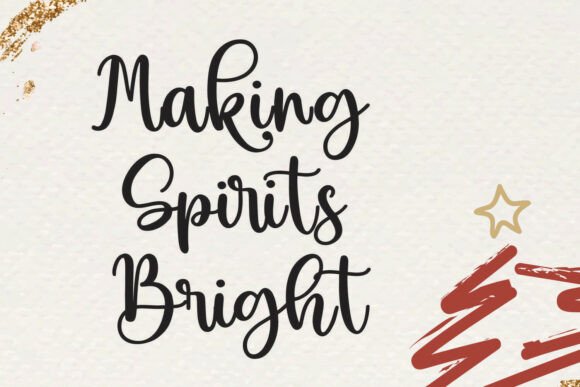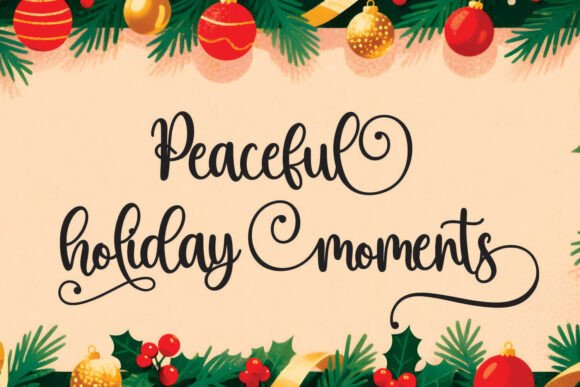
Christmas Bohemian Font
Introducing “Christmas Bohemian”, a stunning script handwritten font that captures the magic and warmth of the holiday season. With its elegant flow and organic charm, this font is perfect for Christmas cards, wedding invitations, festive crafts, and cozy winter projects. It blends a boho-chic aesthetic with classic handwritten beauty, making your designs feel both modern and timeless.
Each letter in Christmas Bohemian features gorgeous beginning and ending swashes, creating smooth, graceful connections that enhance the natural handwritten style. The font also includes a wide selection of alternates, allowing you to mix and match for endless creative combinations. Whether you’re designing holiday mugs, Cricut crafts, embroidery patterns, or festive SVG projects, this font adds a personal and artistic touch.
From Christmas and New Year celebrations to Easter crafts and Thanksgiving decor, Christmas Bohemian shines in every season. Its versatile style makes it ideal for lettering, crafting, and all your handmade projects that deserve a touch of elegance and joy. The soft curves and artistic strokes bring warmth and sophistication to every design.